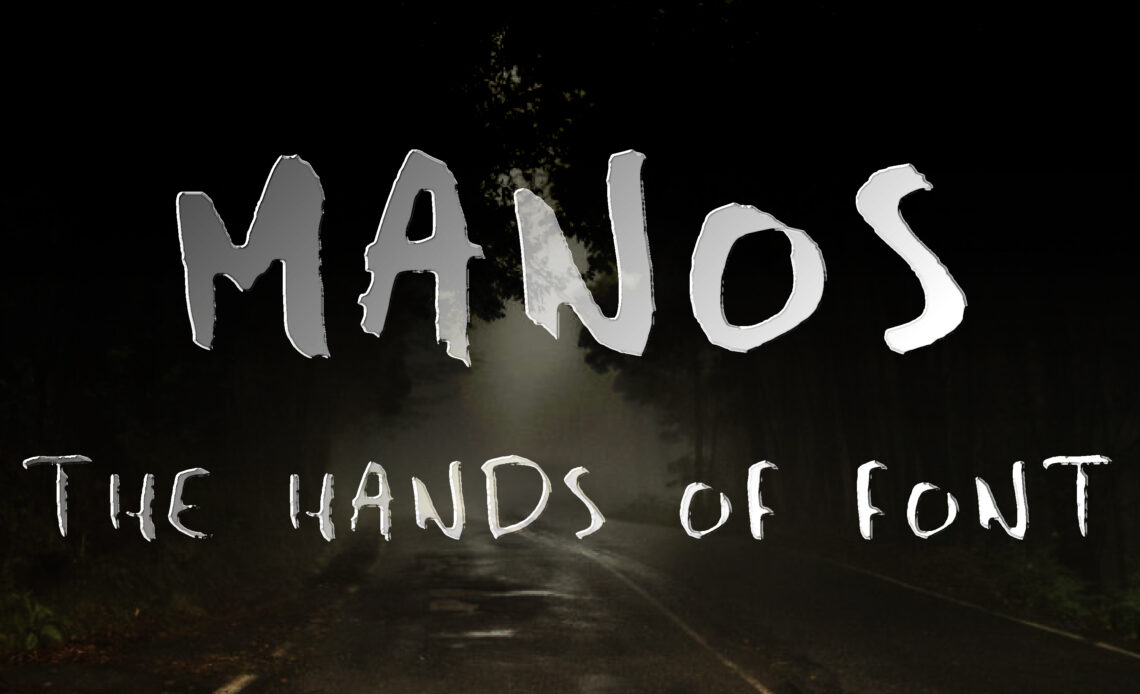
Manos Font
Introducing Manos Font: A Stroke of Uniqueness for Your Creative Endeavors
In a realm of digital artistry, where fonts reign supreme, there exists a creation that defies convention and captivates the imagination. Manos Font, a script font born from the imagination of thorchristopherarisland, stands as a testament to the power of individuality and boundless creativity. This font family, with its enchanting curves and distinctive strokes, dances between playful friendliness and assertive boldness, inviting you to embark on a typographic adventure like no other.
Step into a world where your words take on a life of their own, dancing upon the digital canvas with an allure that mesmerizes and captivates. Manos Font, meticulously crafted from the author's own handwriting, carries an undeniable authenticity and charm that sets it apart from the mundane. Each letter, a stroke of genius, invites you to see the world through the eyes of the artist, to feel the emotions embedded in every curve and line.
Designers, rejoice! With Manos Font, your projects will transcend the ordinary and enter the realm of the exceptional. Its versatility knows no bounds, effortlessly adapting to a multitude of design styles and concepts. Whether you seek to create eye-catching logos, memorable branding elements, or captivating social media posts, Manos Font stands ready to elevate your creations to new heights. Unleash your imagination and let your words shine with an unparalleled brilliance.
For those seeking a touch of exclusivity and originality, Manos Font beckons you to embrace its uniqueness. As a font crafted from the heart, it carries a story, a soul, an aura that resonates with authenticity. Your designs will exude an air of distinction, captivating your audience with a visual symphony that speaks volumes.
With Manos Font, you hold the key to unlocking a realm of creative possibilities. Its ability to transform ordinary text into captivating works of art is truly remarkable. Its charm lies in its ability to evoke emotions, to spark conversations, and to leave a lasting impression on the minds of those who encounter it.